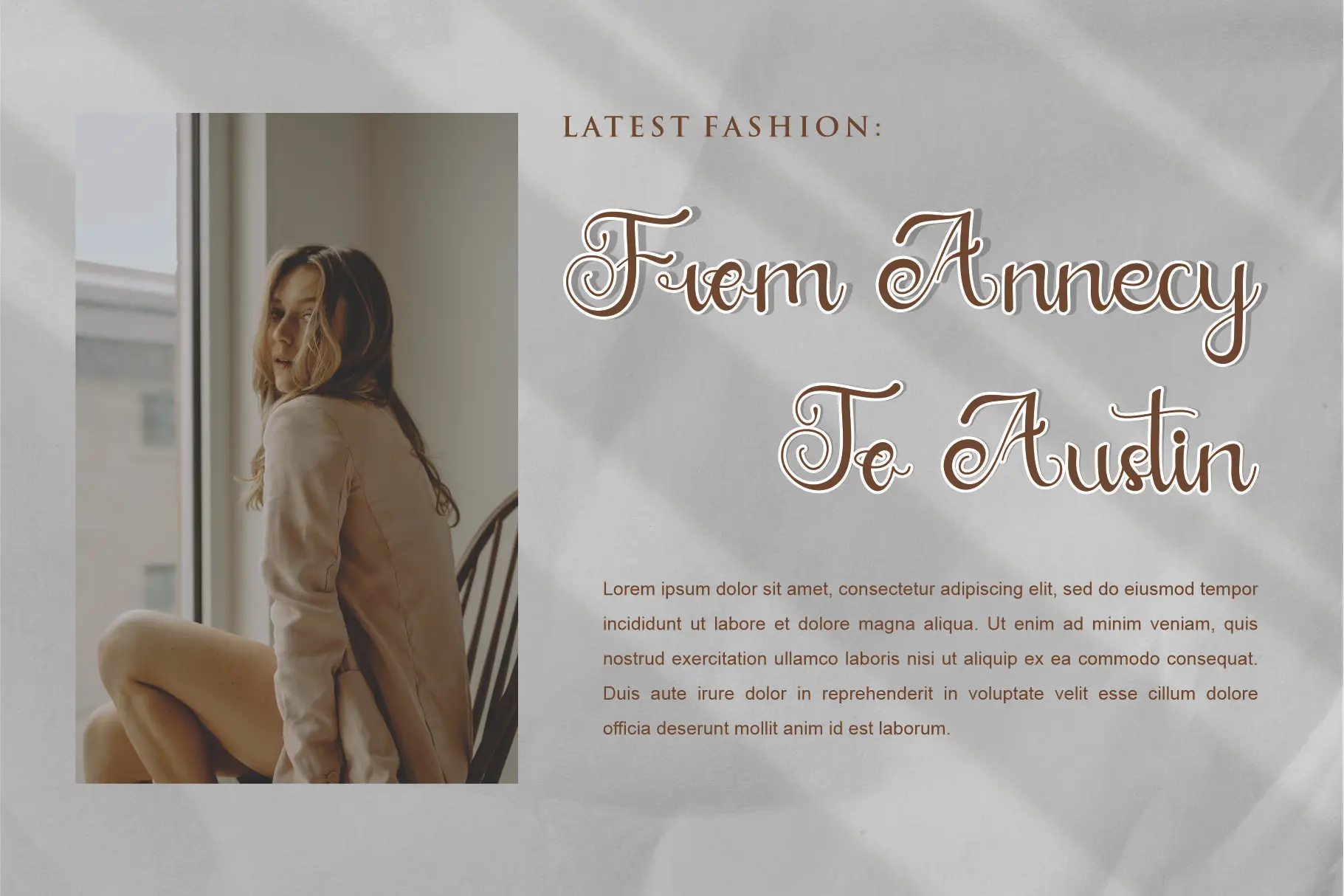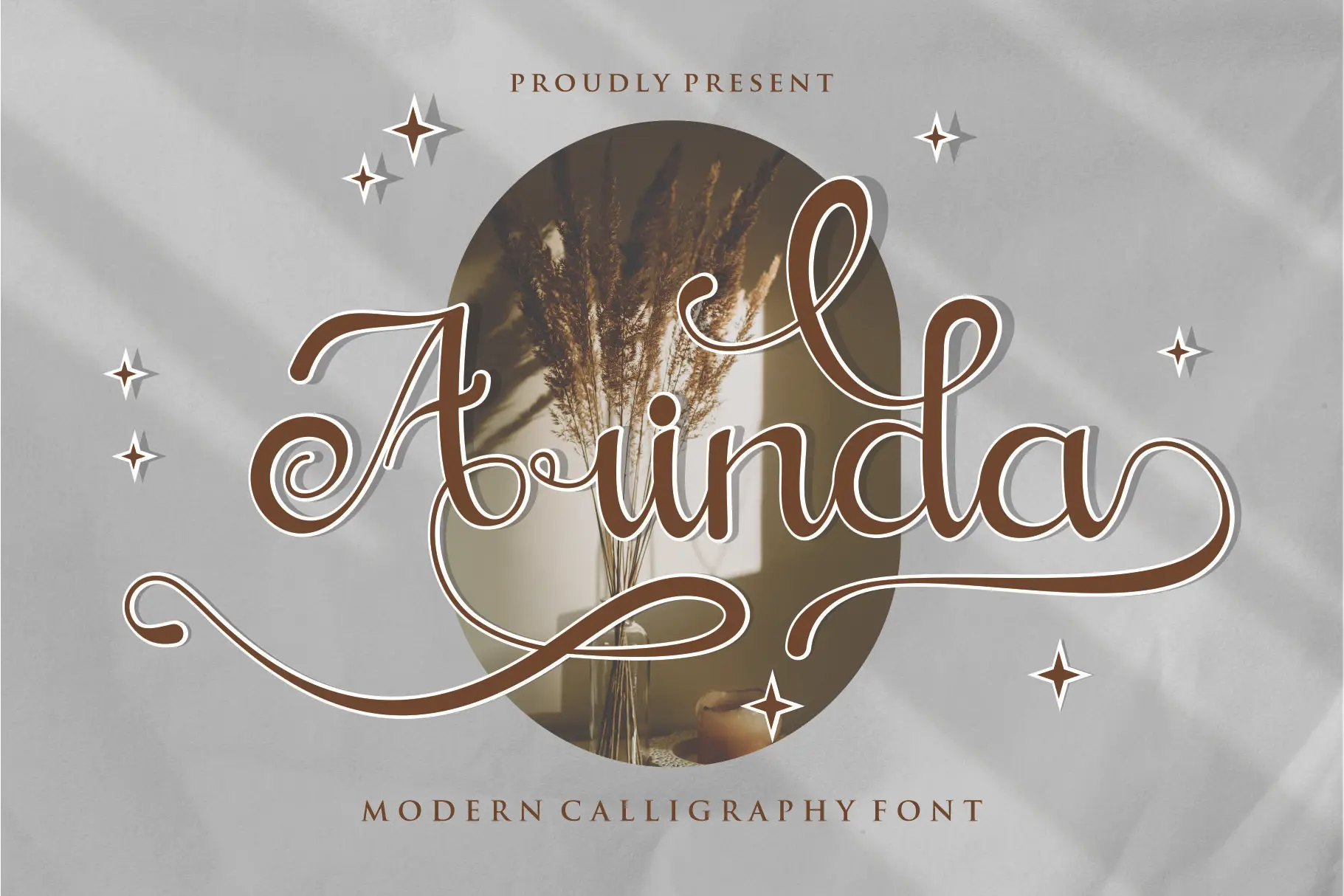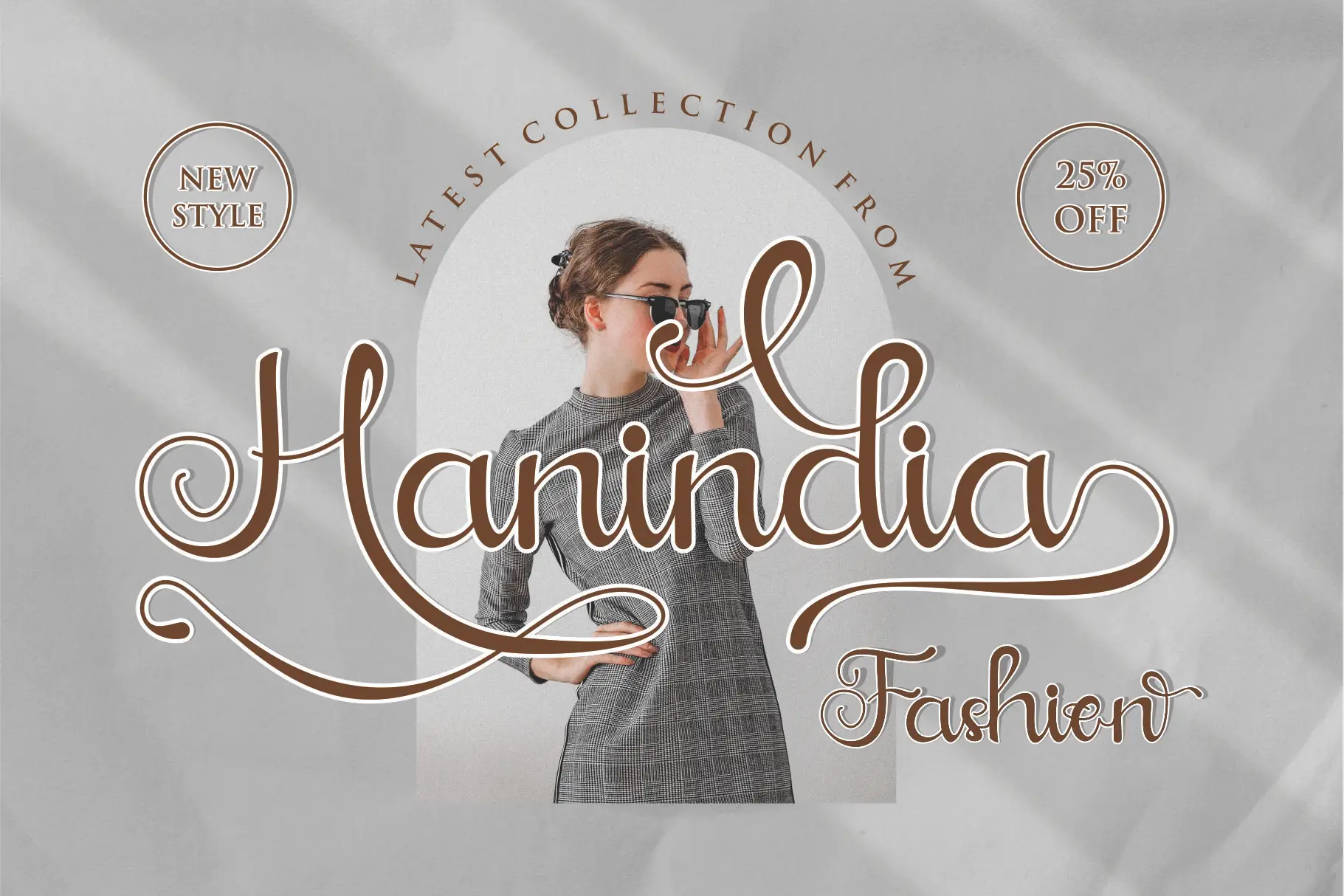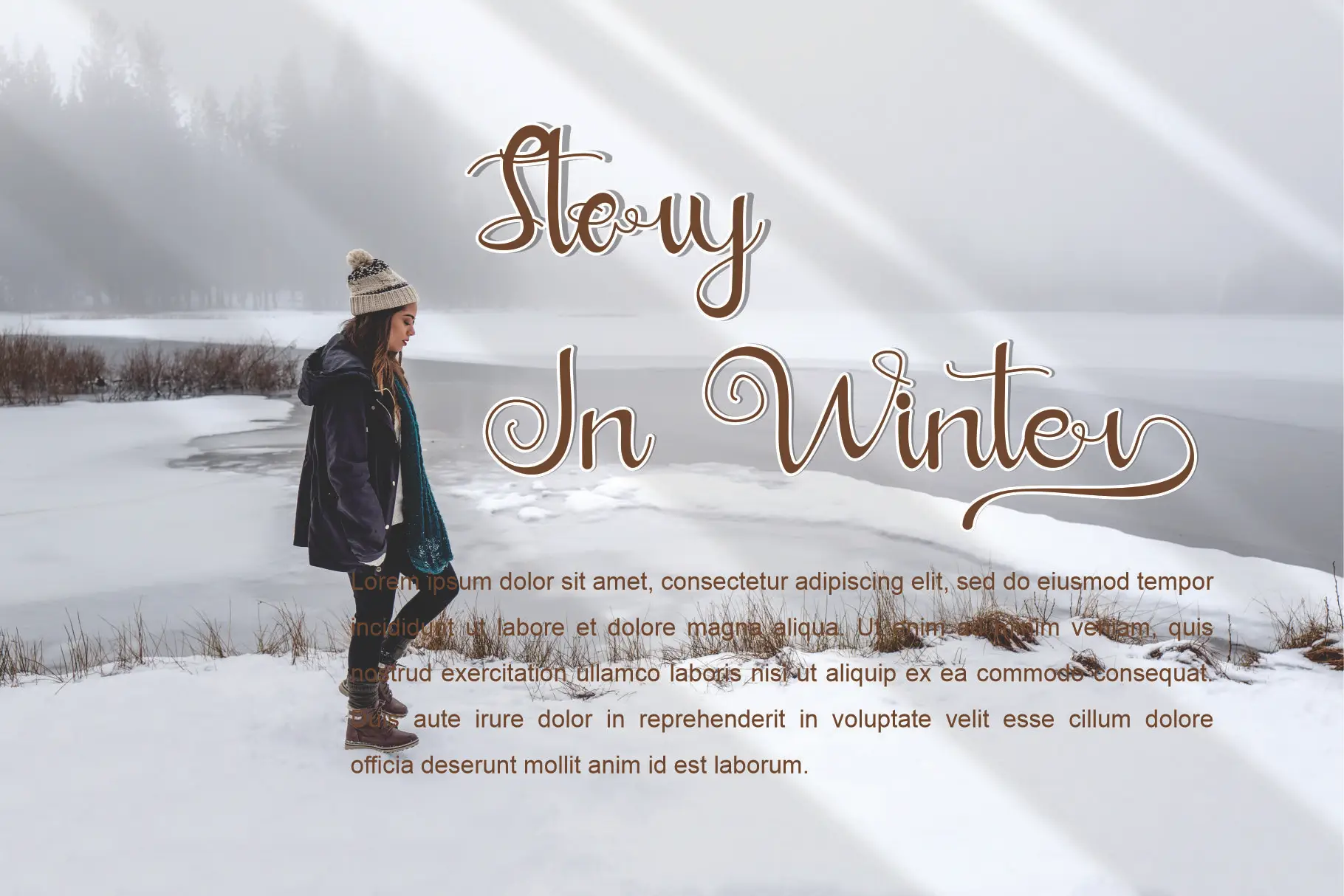
Arinda Script Font
Introducing the Arinda Script Font, a beautifully crafted typeface that combines elegance and readability. This font is perfect for a variety of design projects, whether you’re creating branding materials, logos, or web content.
• Stylish script design with a modern touch
• Multiple weights to suit different design needs
• Extensive character set including special characters and ligatures
• Ideal for branding, invitations, and greeting cards
• Perfect for web design to add a personal touch
• Use in print materials for an elegant finish